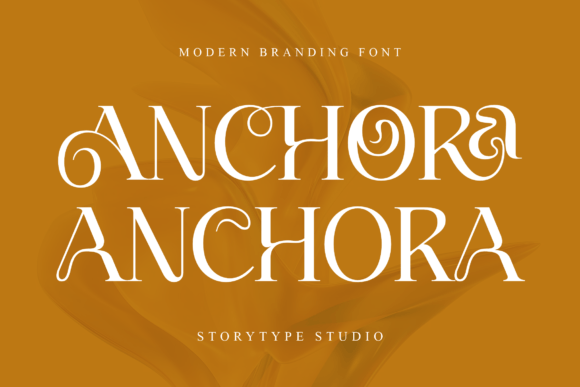
Behold Anchora, the serif font that captivates with its timeless beauty and effortless elegance. Born from the creative minds at Storytype Studio, Anchora is the perfect companion for your creative endeavors, transforming them into stunning masterpieces. Its natural charm and delicate curves bring a touch of sophistication to any design, leaving an impression that lingers.
Step into a world of typography where elegance and simplicity dance harmoniously. Let Anchora guide your words, shaping them into captivating narratives and striking headlines that demand attention. Its versatile nature lends itself to a myriad of creative expressions, whether you're crafting heartfelt quotes, designing eye-catching logos, or creating enchanting invitations.
With Anchora as your font of choice, your designs will exude a sense of authenticity and timelessness. Its classic serif strokes evoke a feeling of heritage and tradition, while its modern sensibility keeps it relevant and impactful in the digital age.
Imagine your words taking center stage, adorned with the grace and poise of Anchora. Your quotes will radiate wisdom and inspiration, your logos will convey professionalism and trust, and your invitations will entice with a touch of timeless elegance.
Anchora is more than just a font; it's an artistic tool that empowers you to create designs that speak to the soul. Its natural flow and graceful curves evoke emotions, drawing readers into your message and leaving a lasting impression.